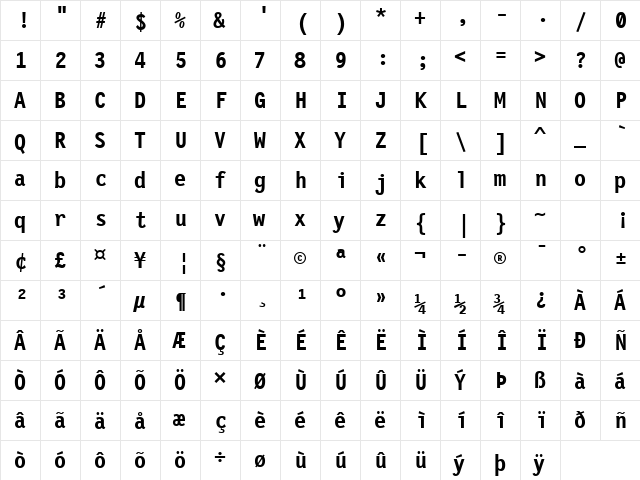
LetterGothic12Pitch Bold Strike Bold Font Preview
LetterGothic12Pitch Bold Strike Bold
LetterGothic12Pitch Bold Strike Bold Font Details
Design Context for LetterGothic12Pitch Bold Strike Typeface
LetterGothic12Pitch Bold Strike takes a clean, functional approach — its unadorned letterforms prioritise legibility and work reliably across screen and print environments. The heavy weight commands attention and anchors typographic hierarchies.
Well-suited to navigation labels, product packaging, and anywhere legibility at scale is essential.
Font Pairing: Use LetterGothic12Pitch Bold Strike for headlines alongside a lighter-weight sans or serif for body copy to establish clear visual hierarchy.
Pro Tip: Use LetterGothic12Pitch Bold Strike for UI labels, navigation, and short-form body copy where clean legibility is the priority.